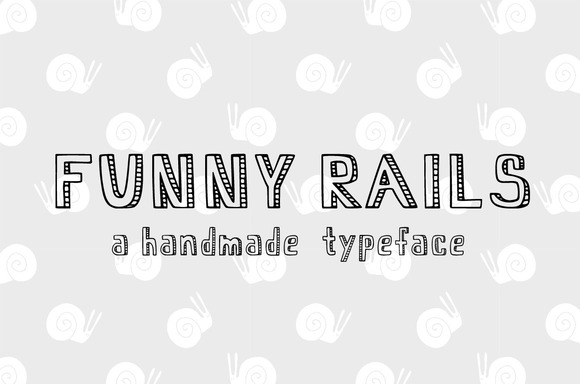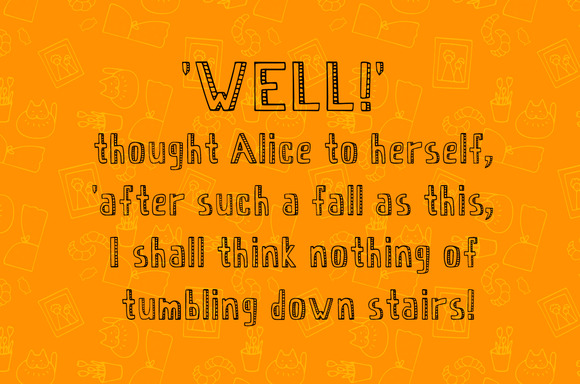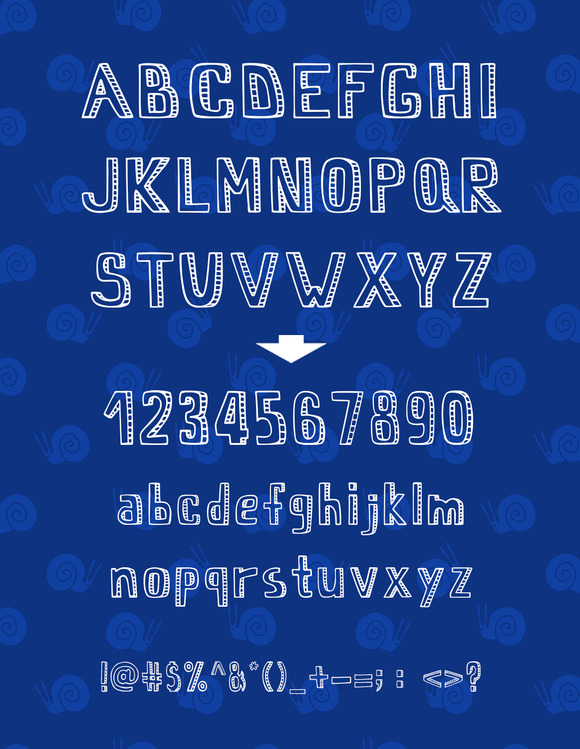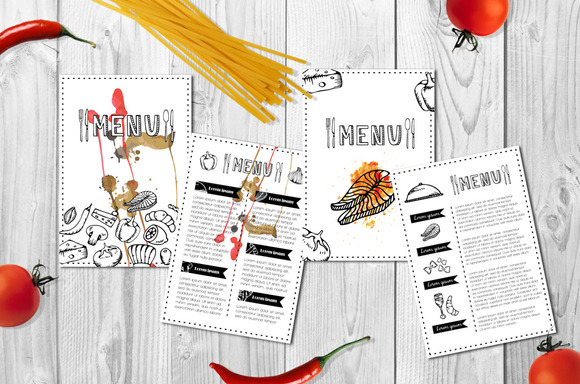
Funny Rails: Handmade Typeface
Funny rails – this is my first font designed manually! It is ideal for your graphic design, brochure design, children’s books, magazines, posters, covers and much more!